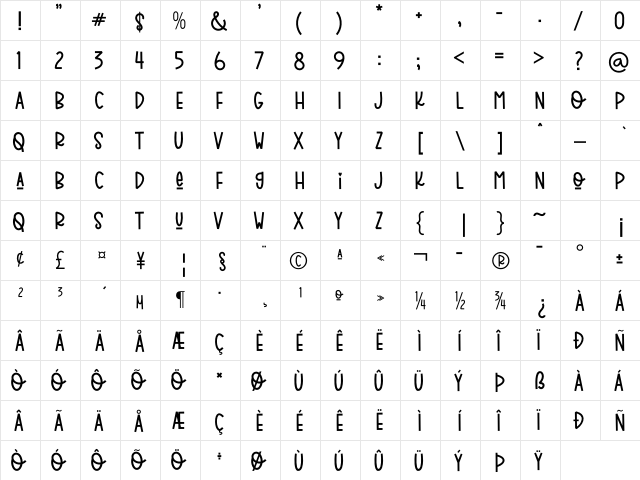
Holiday Planner Regular
| Designer | deedeetype |
Design Context for Holiday Planner Typeface
Holiday Planner offers clean, dependable letterforms without strong stylistic allegiance, making it a practical choice for designers who need flexibility.